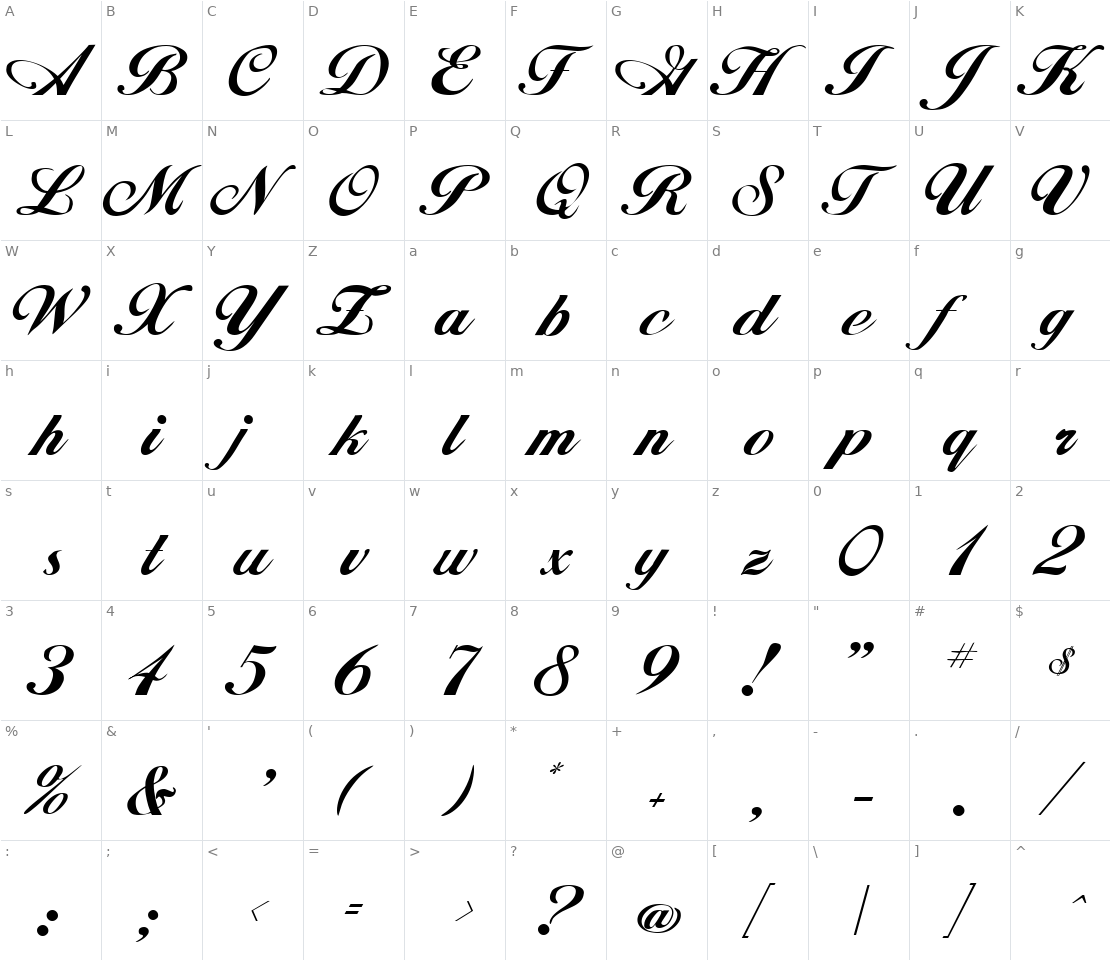
Alison
Alison is a formal cursive typeface with flowing, calligraphic letterforms that carry an unmistakably feminine elegance. The italic strokes feel deliberate and graceful, with decorative flourishes that stay refined rather than overdone. A natural choice for wedding invitations, formal stationery, and branding where classic script needs to feel personal and polished.